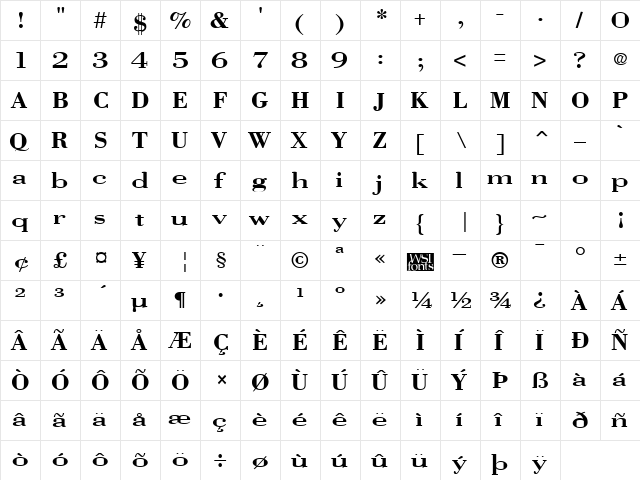
VangardSolid Regular Font Preview
VangardSolid Regular
Design Context for VangardSolid Typeface
VangardSolid takes a measured approach to typography — its balanced proportions and neutral character make it a reliable workhorse for both digital and print work.